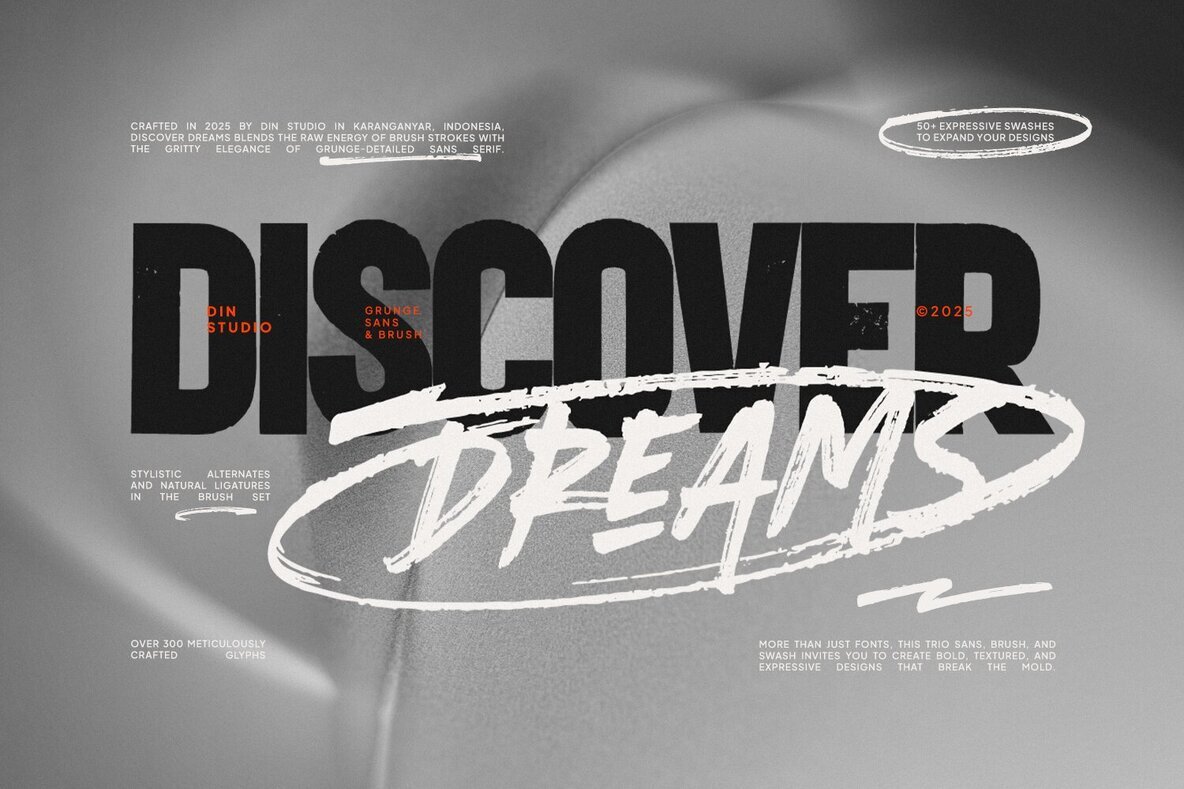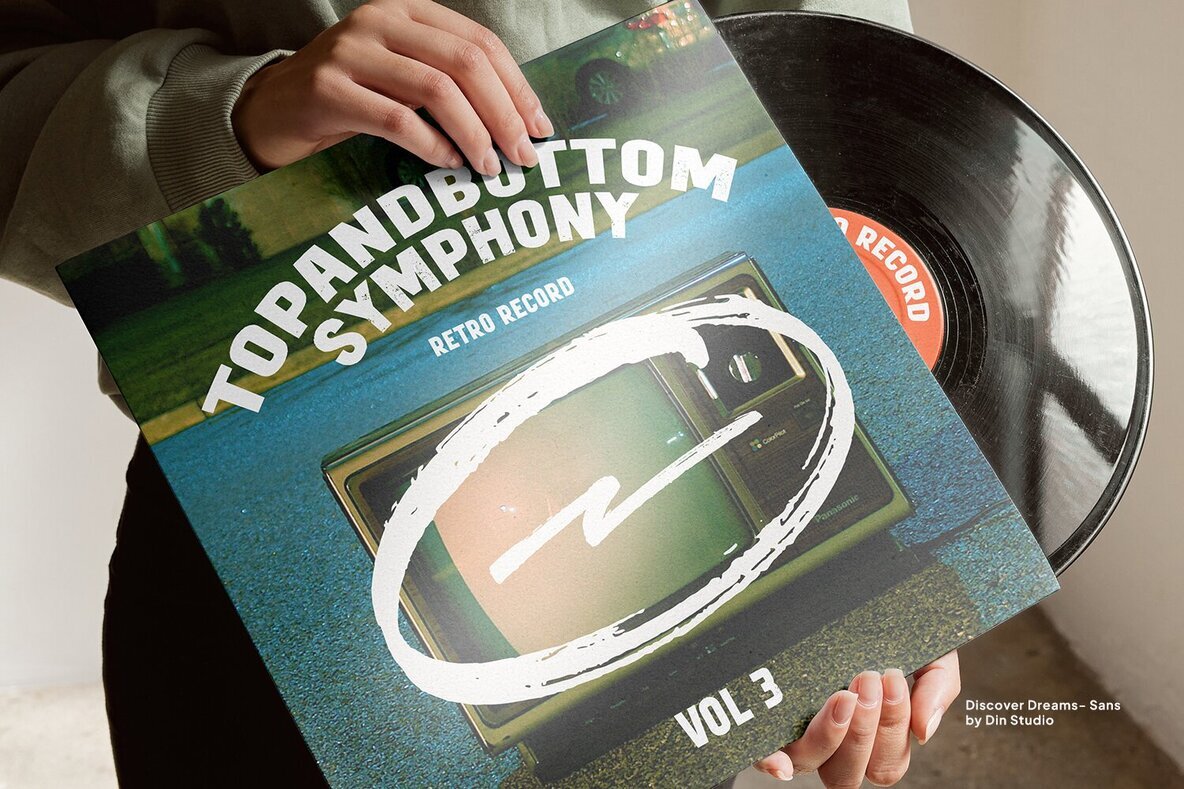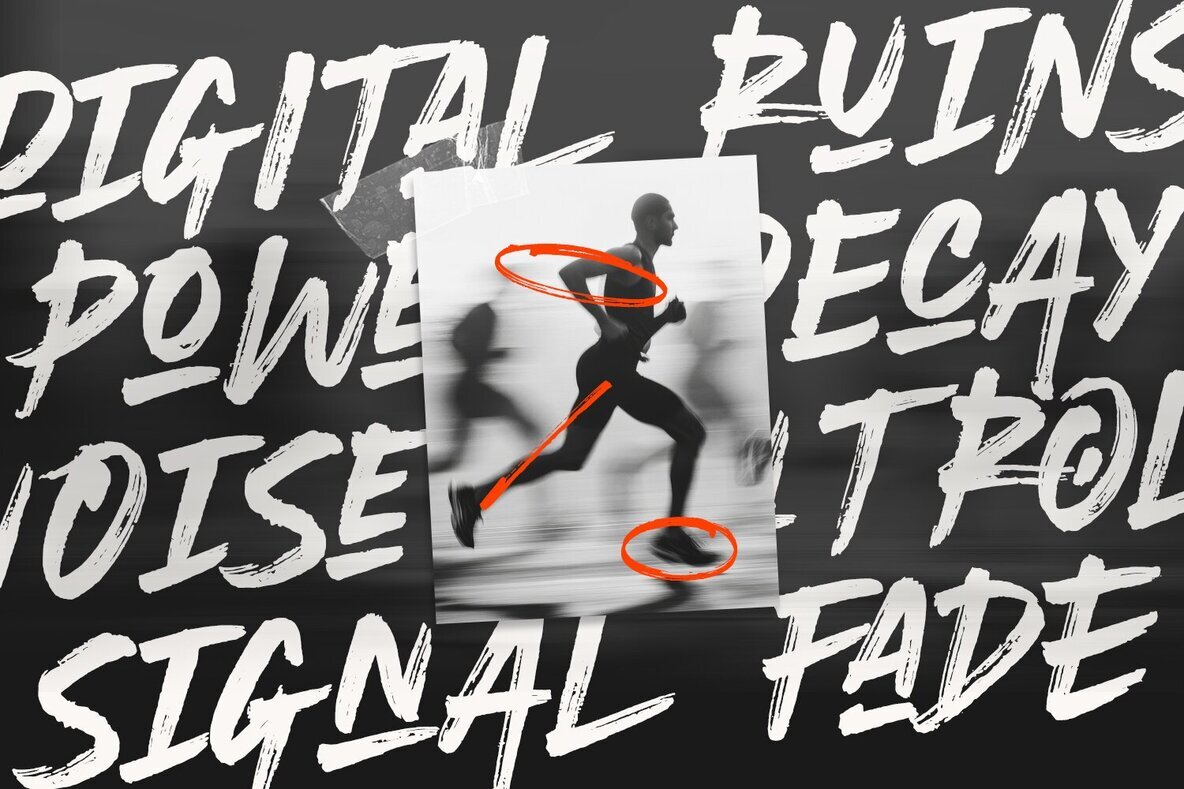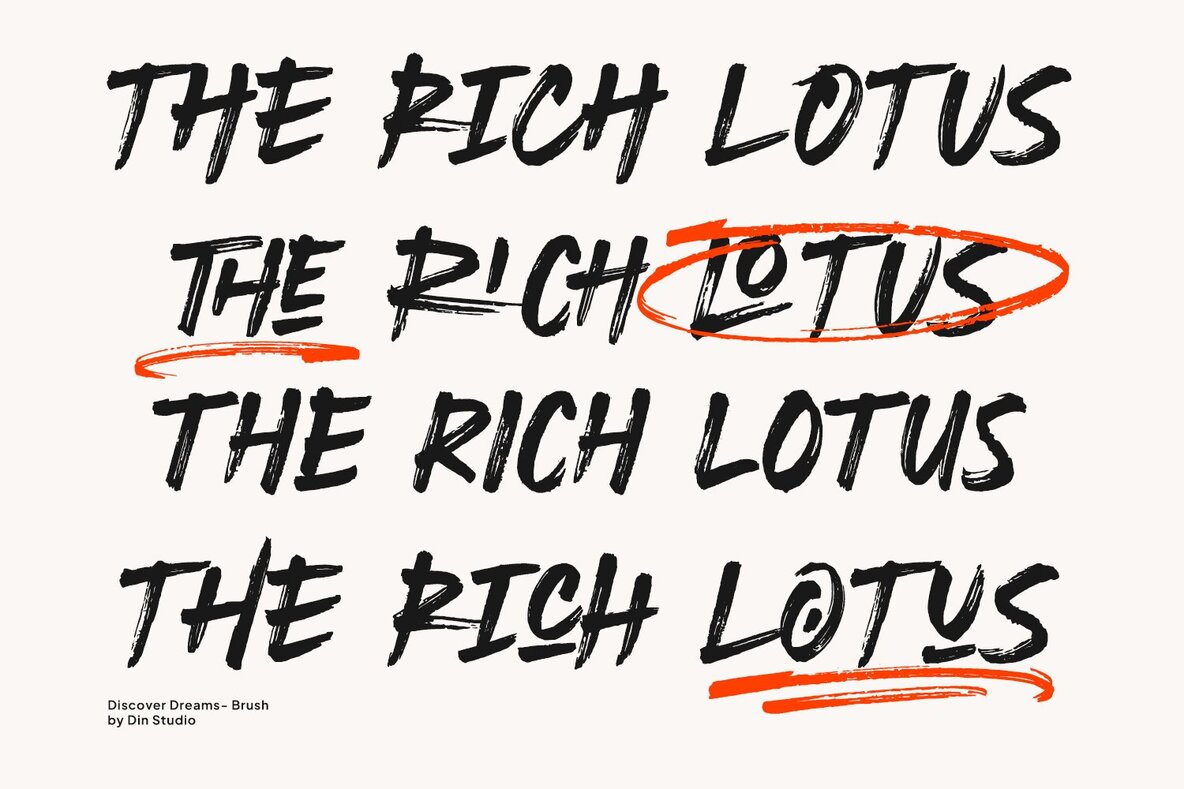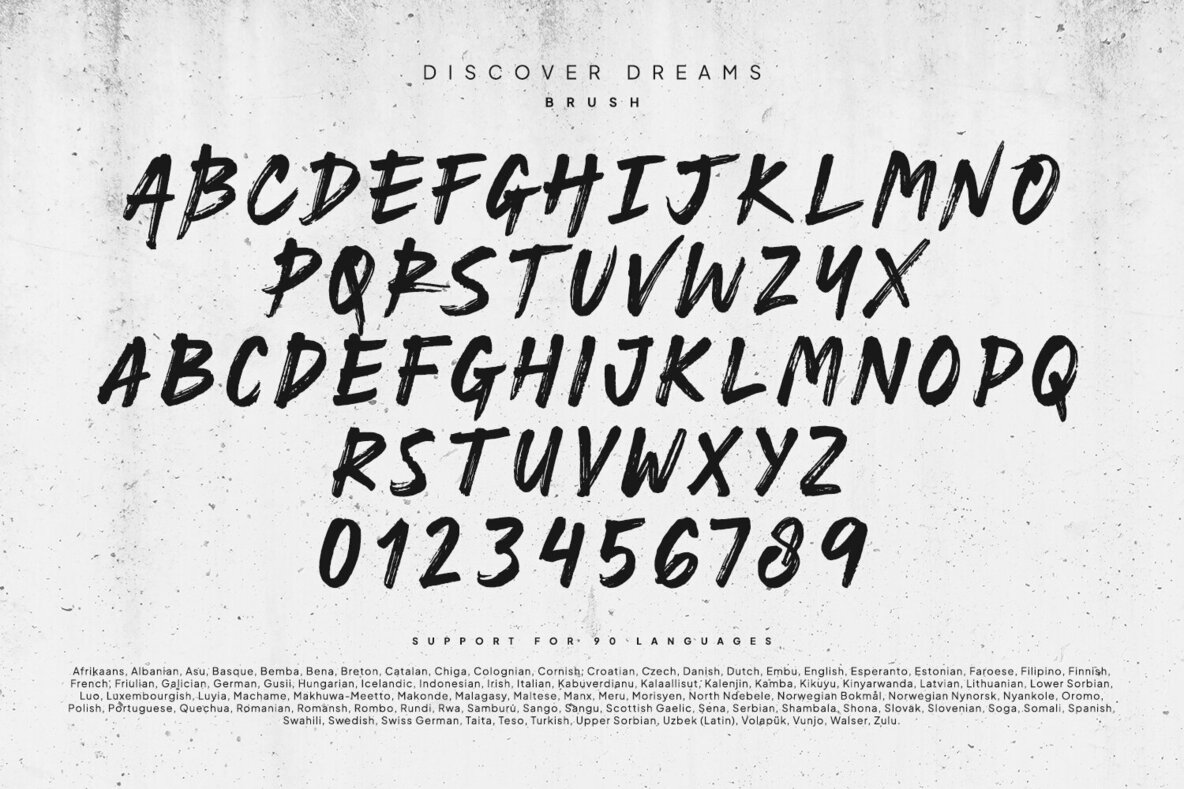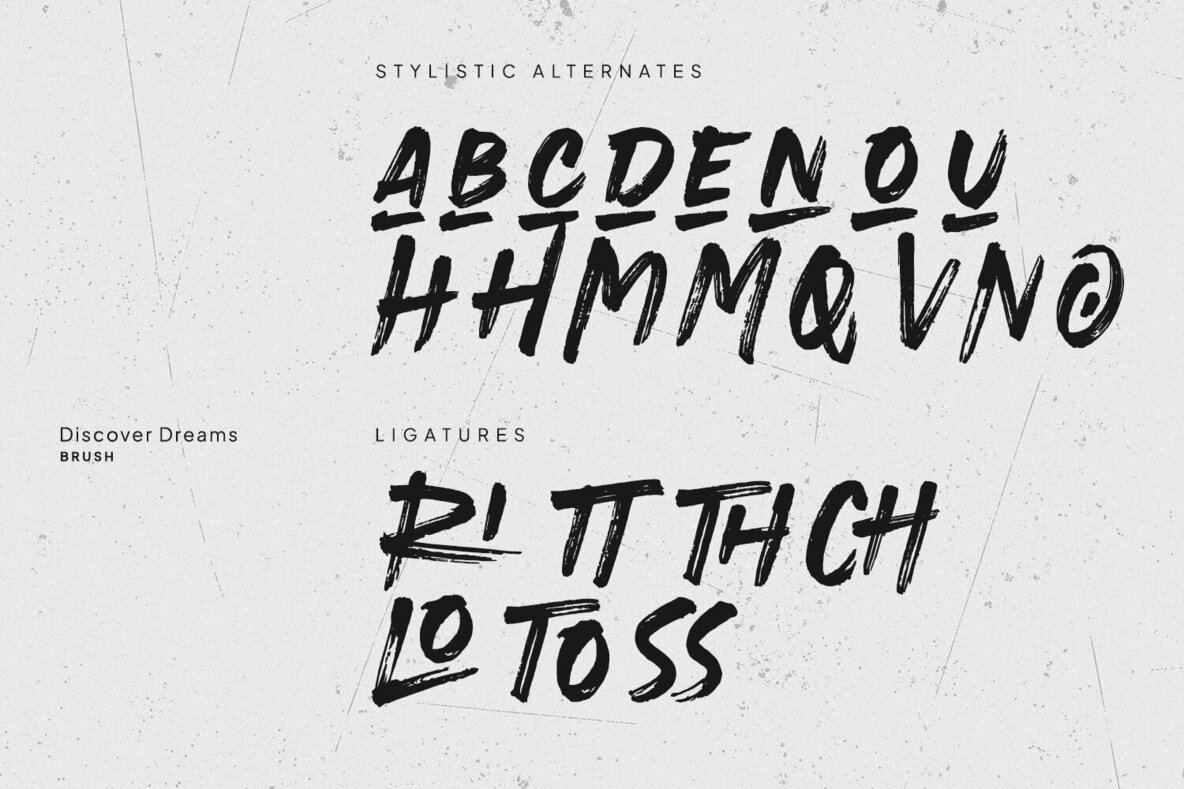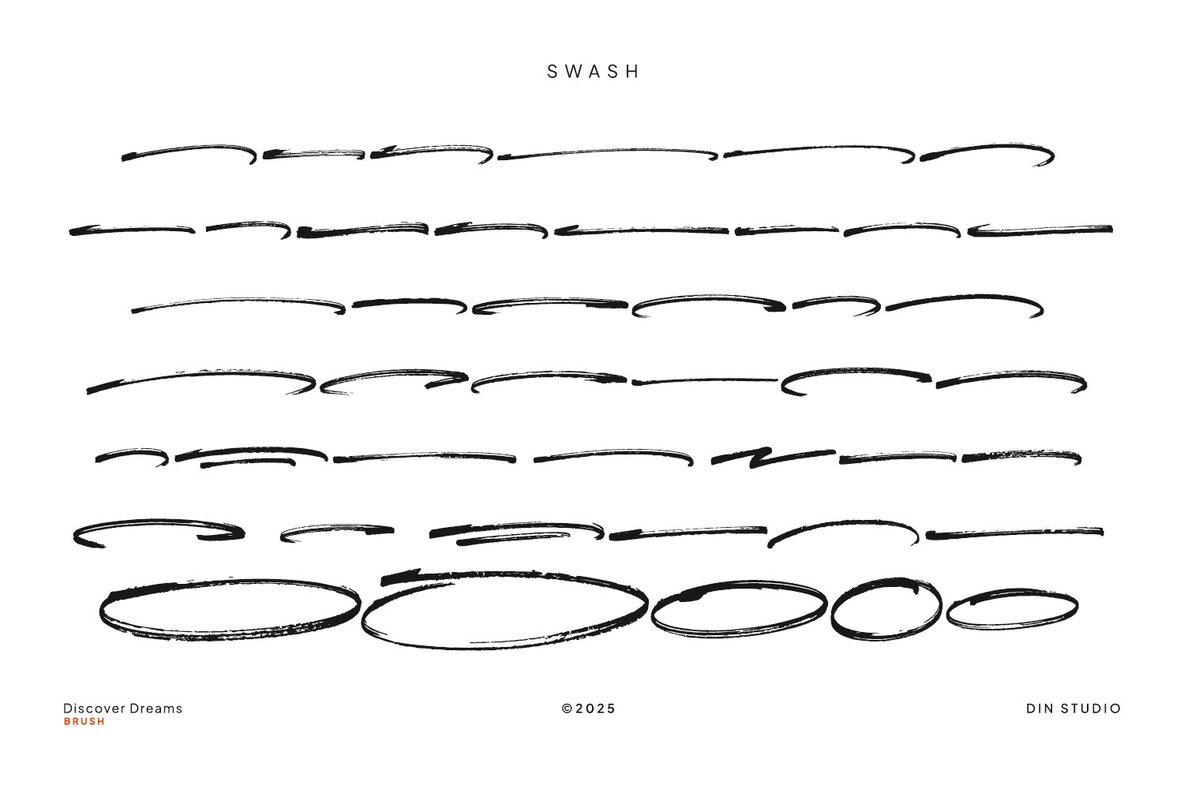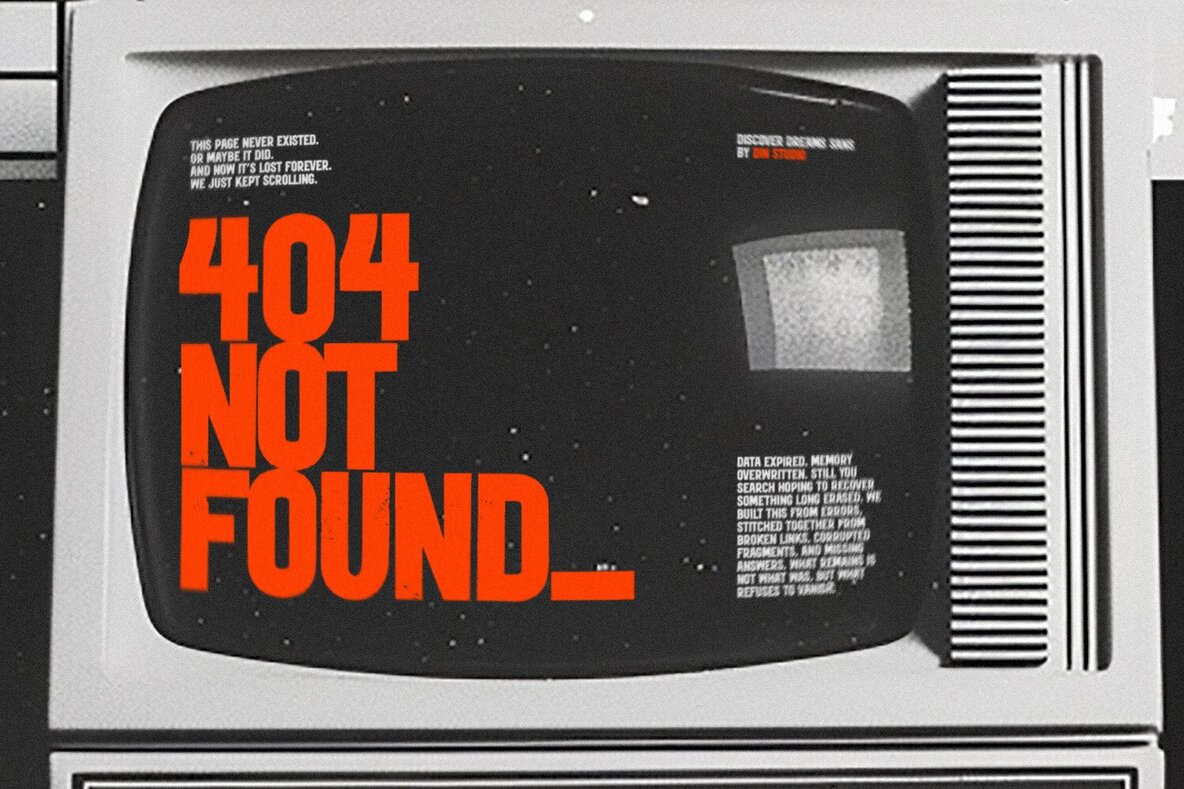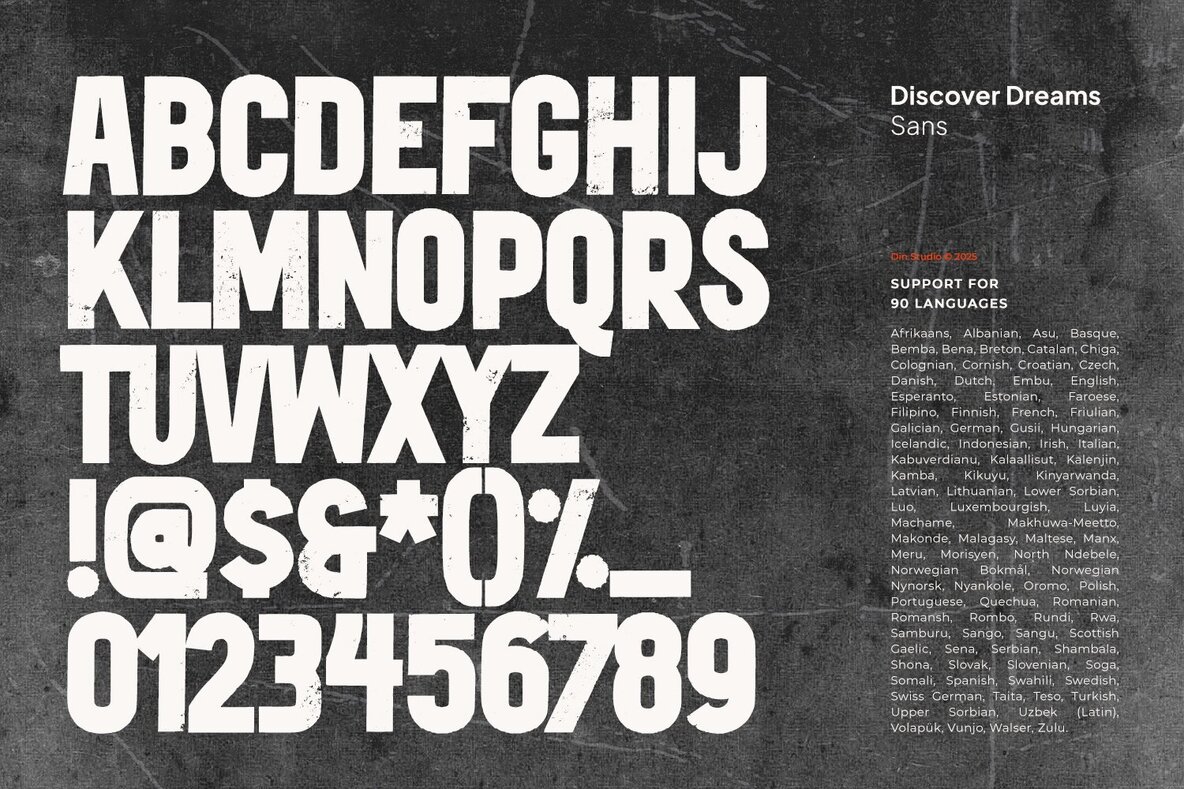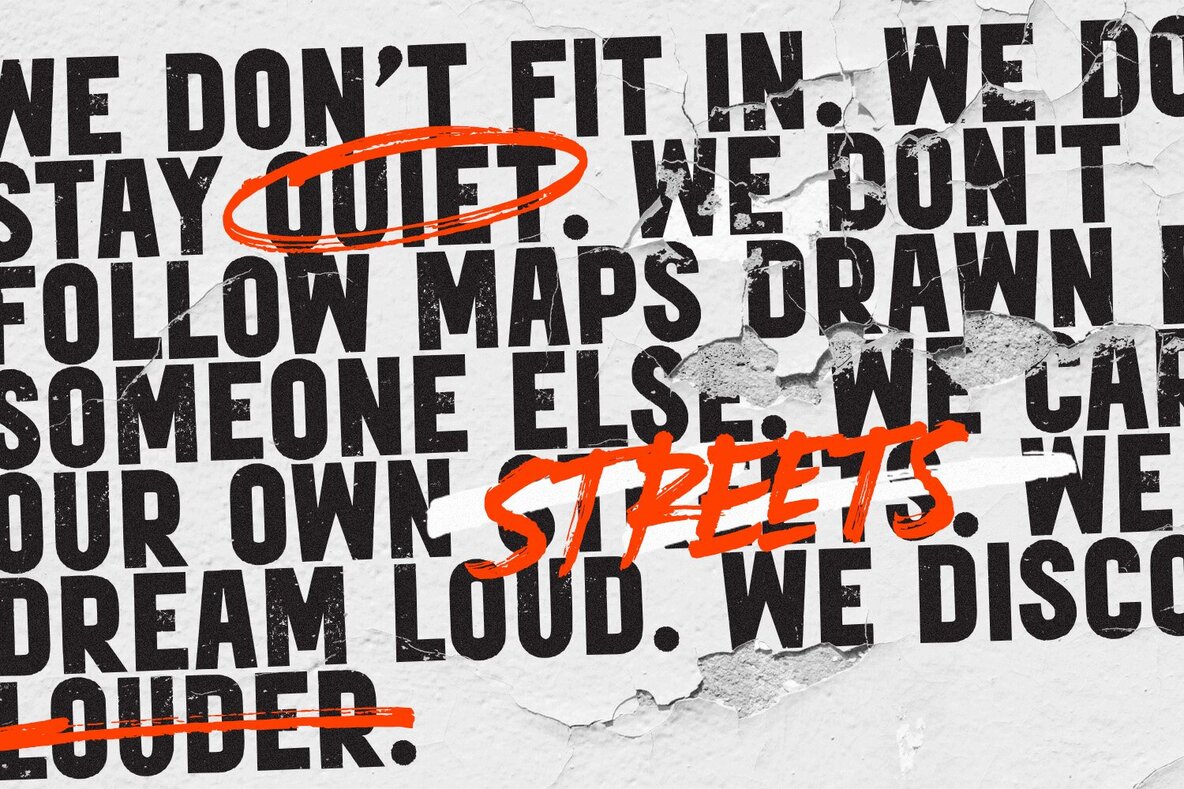
Discover Dreams Font
Discover Dreams Sans
Discover Dreams Brush
Discover Dreams Swash
Introducing a dynamic fusion of brushwork and robust modern typography, the Discover Dreams font duo is where bold uppercase meets grunge-inspired sans serif. This combination channels the visceral energy of hand-painted strokes with a textured, edgy character across nine versatile weights. Perfectly suited for name cards, branding, packaging, and editorial designs, Discover Dreams offers creative professionals versatile options for standout projects. For more inspiration, explore the font preview and see this duo in action.Bold Typography: Discover Dreams Font Duo